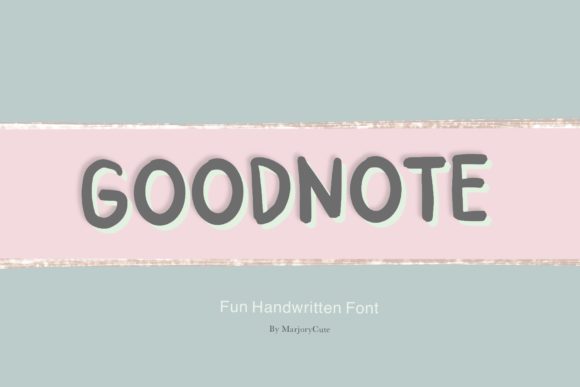
Immerse yourself in a world of tasteful creativity with Goodnote, a charming handwritten font that embodies the beauty of simplicity. It's a playful and authentic script, crafted with meticulous attention to detail. Whether you're designing birthday banners or invitations, the Goodnote font will add a touch of heartwarming flair to your creations.
This font is perfect for capturing precious moments. It brings a nostalgic feel to announcements and invitations, adding a personal touch that resonates with your audience. The natural flow of the font reflects the essence of joyful occasions, evoking a sense of celebration and happiness.
With Goodnote, you embark on a creative journey that ignites your imagination. Transform your designs into enchanting visual stories that captivate your audience. Create birthday banners that pop with vibrant colors and whimsy, leaving a lasting impression that lingers in their hearts.
Goodnote's versatility extends to any design project that calls for a touch of heartfelt charm. From school projects to children's books, this font adds a special spark that brings your words to life. It's a font that evokes nostalgia while embracing modern aesthetics, striking a perfect balance between classic and contemporary.
Discover the magic of Goodnote and unlock a world of expressive designs that touch the soul. Let your creativity soar as you craft designs that speak volumes, connecting with your audience on an emotional level. Make your designs resonate with the joy of life, the warmth of friendship, and the beauty of heartfelt moments.